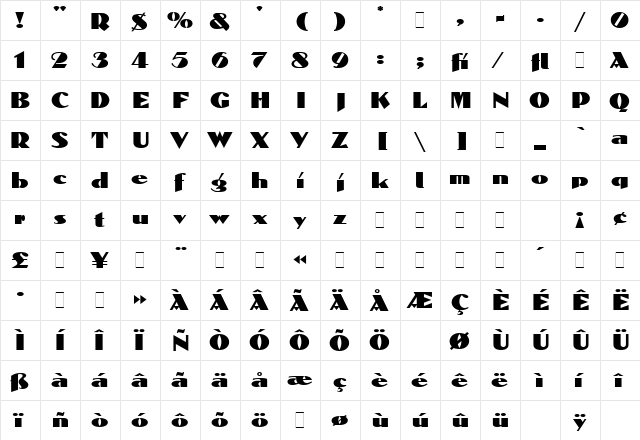
Dolmen LET Plain
Design Context for Dolmen LET Typeface
Dolmen LET is a composed and adaptable typeface that performs quietly and consistently across a wide range of design contexts.